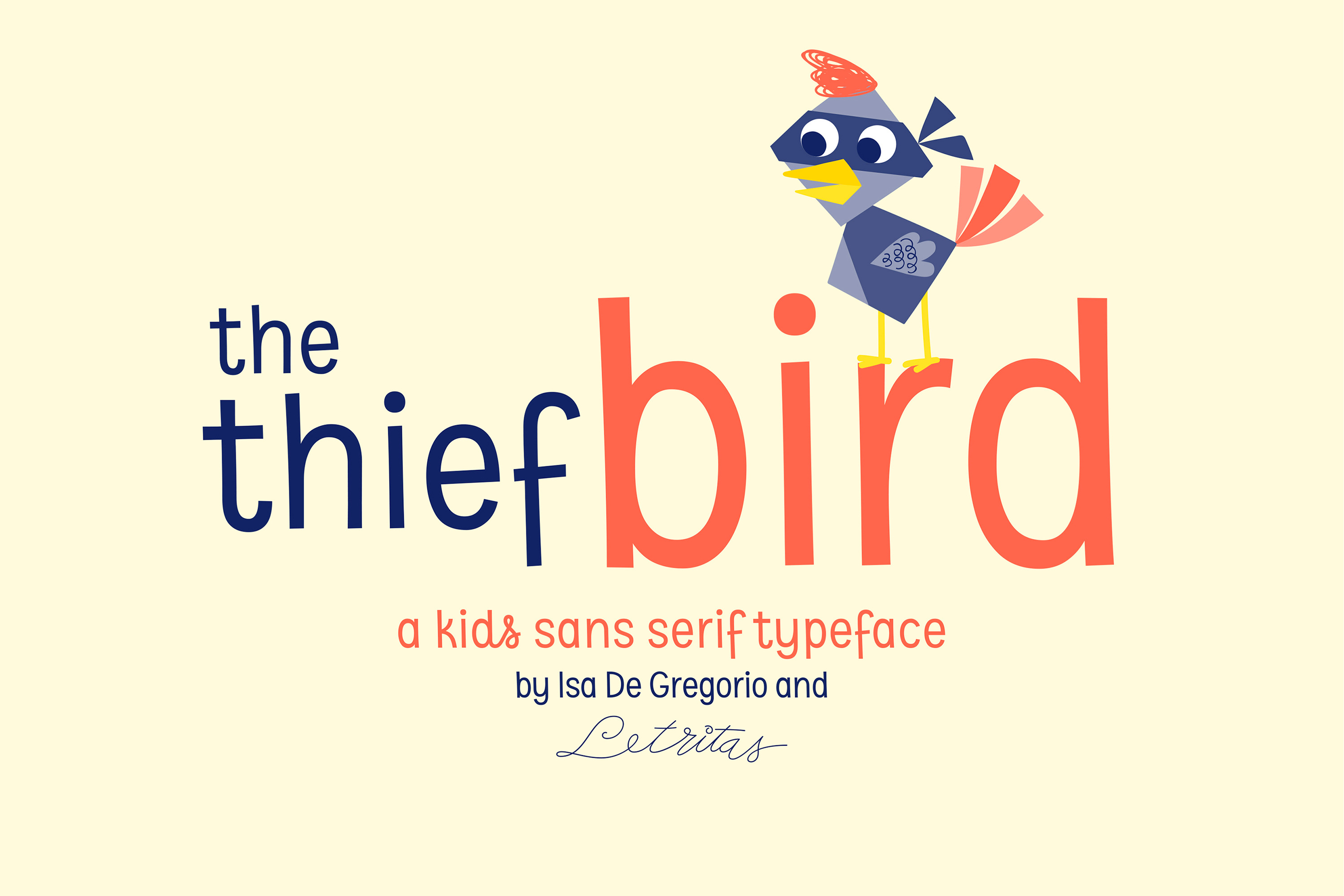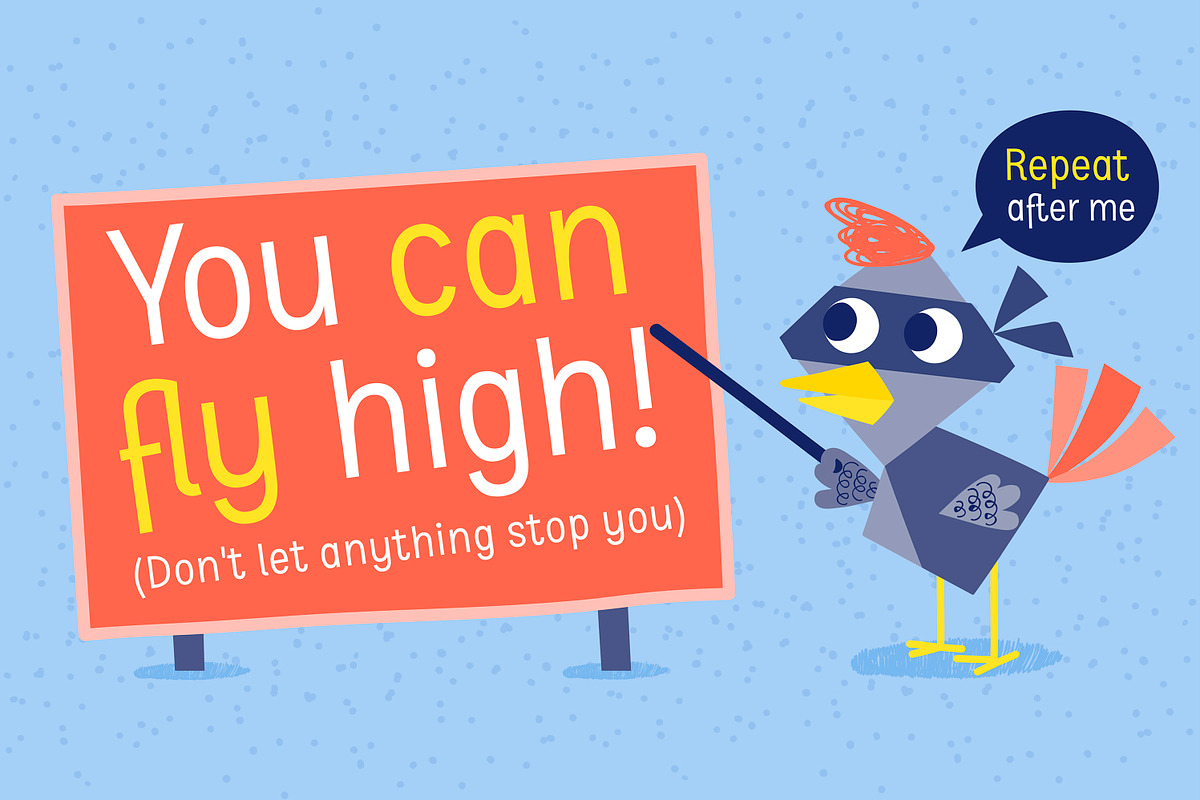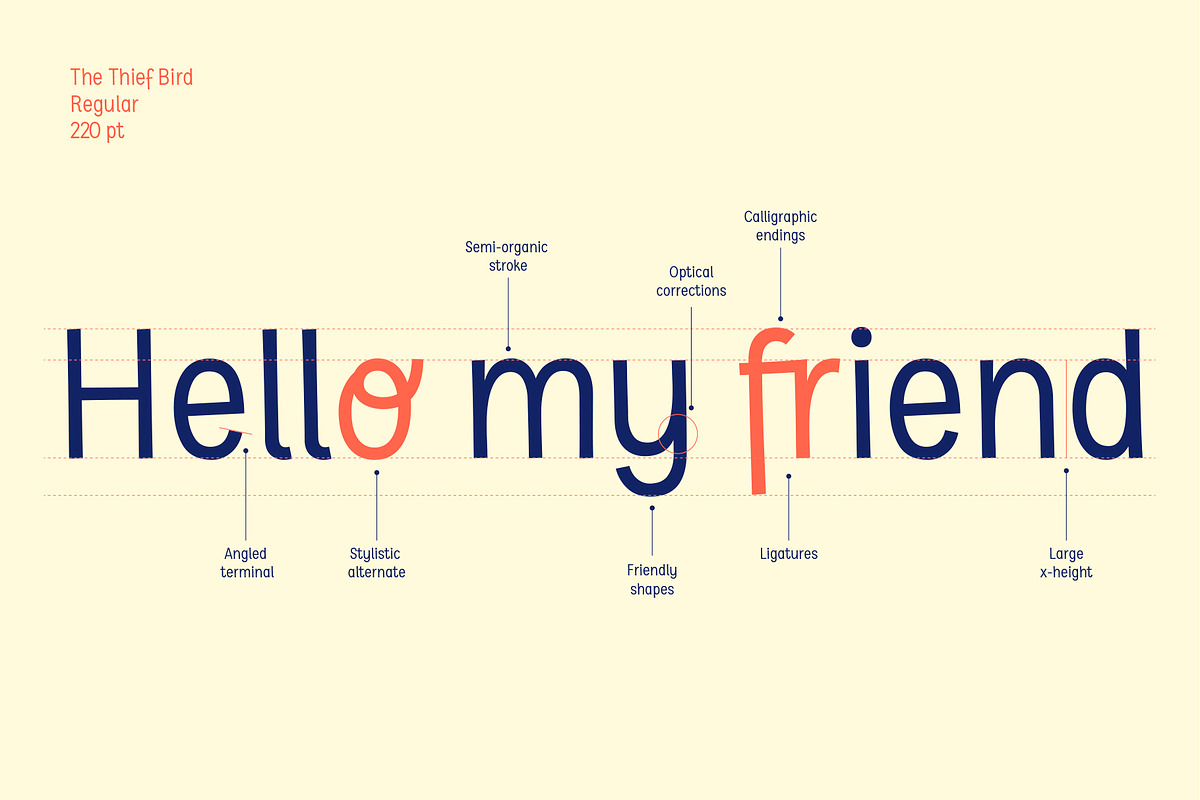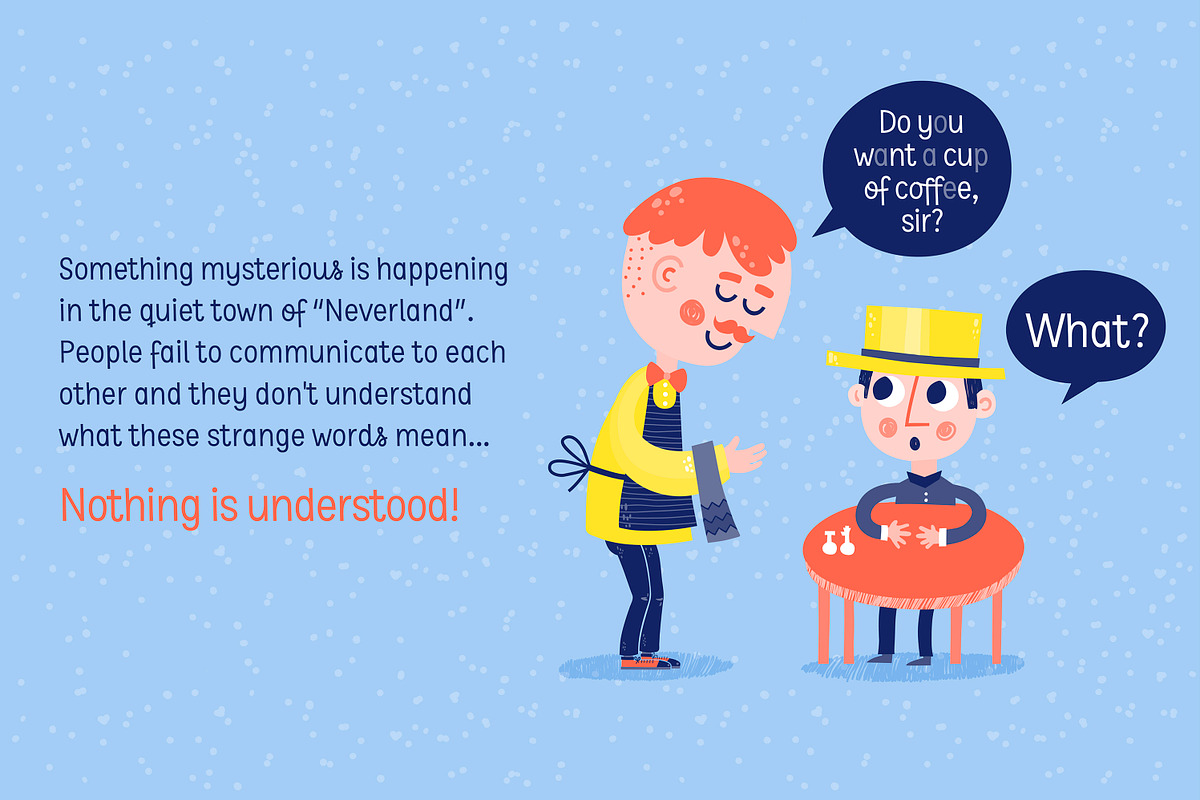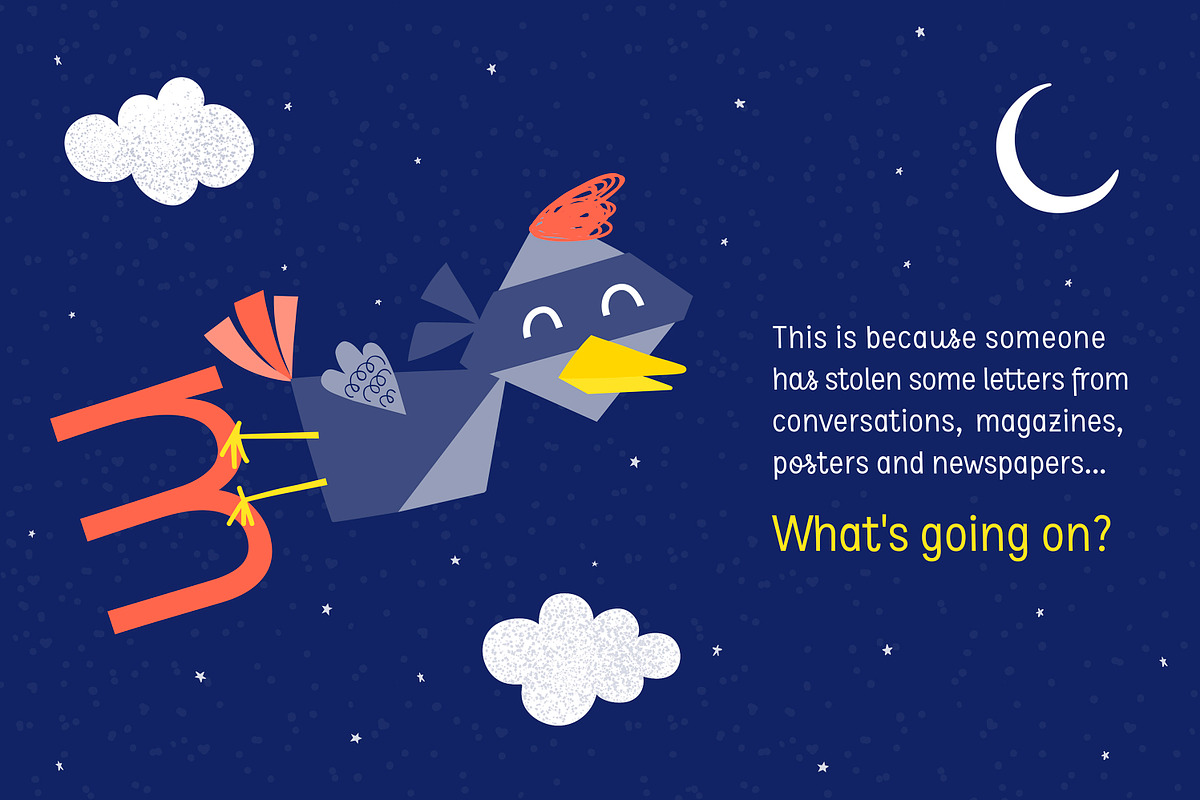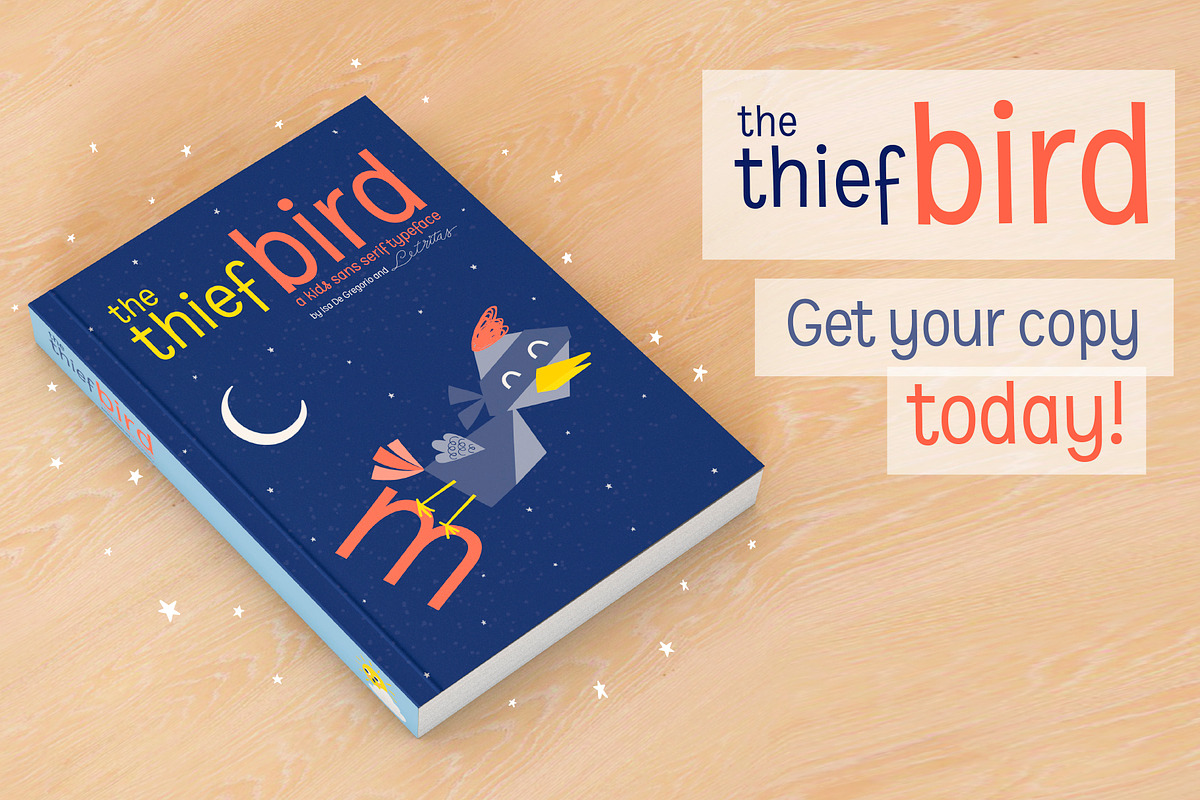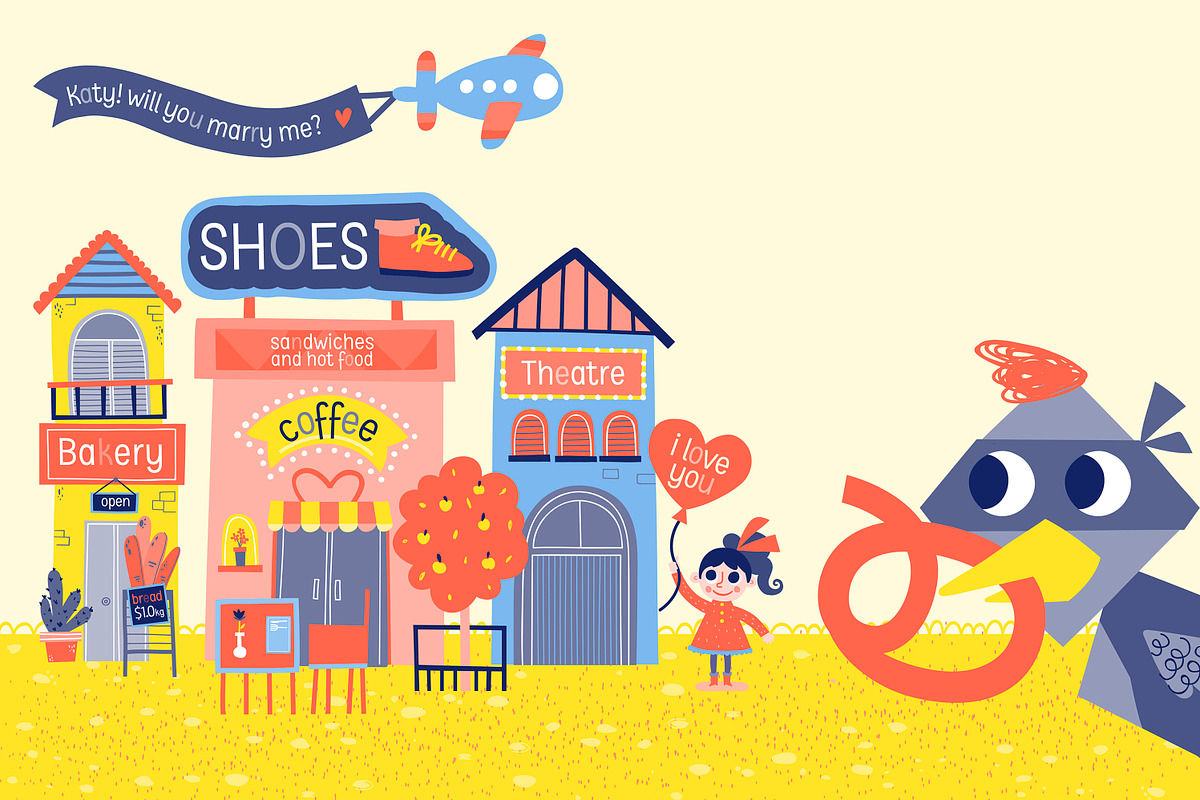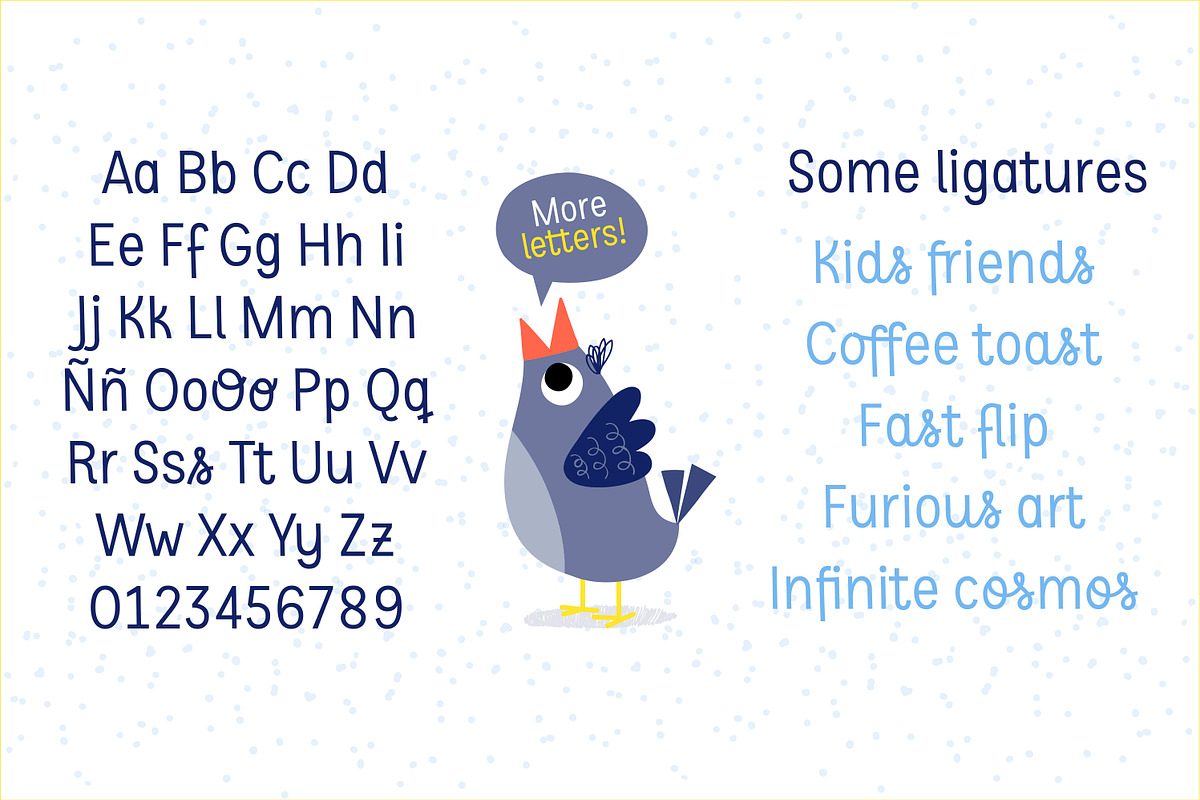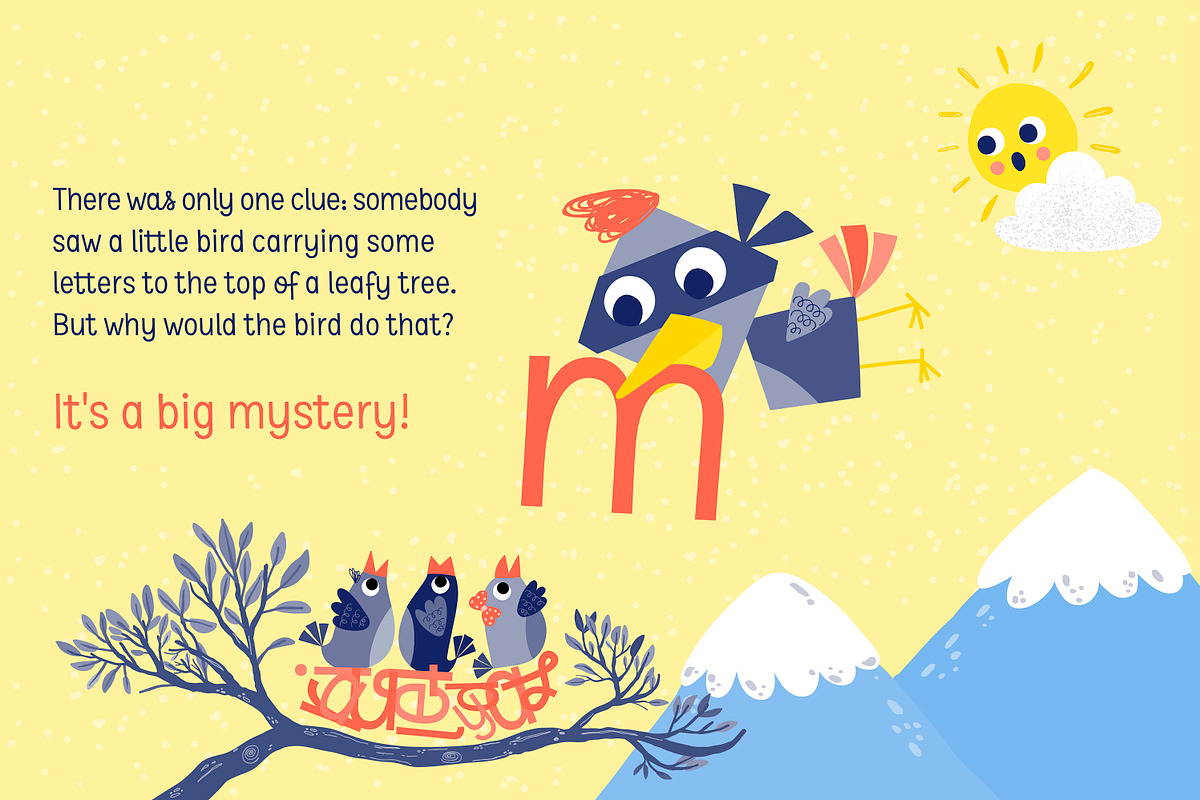
The Thief Bird · Kids San Serif Font
The Thief Bird is an informal grotesque font. Although informal and grotesque may seem to be two quite different ideas, we have to dig into the origin of this typeface in order to understand the matter. The concept behind The Thief Bird was inspired by the adaptation that the vintage sign painters made when they took the grotesque style characters they saw in newspapers and magazines and reproduced them using a brush, aiming to make the prices of the products displayed on wooden boards stand out, as opposed to highlighting large headlines (such as the idea behind fonts like Franklin Gothic). The Thief Bird takes the language from sign painters and turns it into a font --this time around not aiming to set prices but to bring children stories to life. Thus, some legibility features from grotesque fonts were mixed with the brush calligraphy to add grace and zest to a font intended for children. The Thief Bird is a playful display font, with cheerful ligatures and alternate characters. It is really attractive for setting short paragraphs that tell stories for little people. The Thief Bird has one single weight and it’s ideal to be used in storybooks, candy packaging, films, toys, logos, labels, etc. The font has an extended set of 643 characters supporting 219 Latin languages. It has a complete set of small caps, sensitive cases, more than 30 pairs of ligatures, alternate characters and much more. This cool, informal and laid back typeface will be the perfect match for illustrations of fairy tales, comics for children and any product or publishing for the little ones.